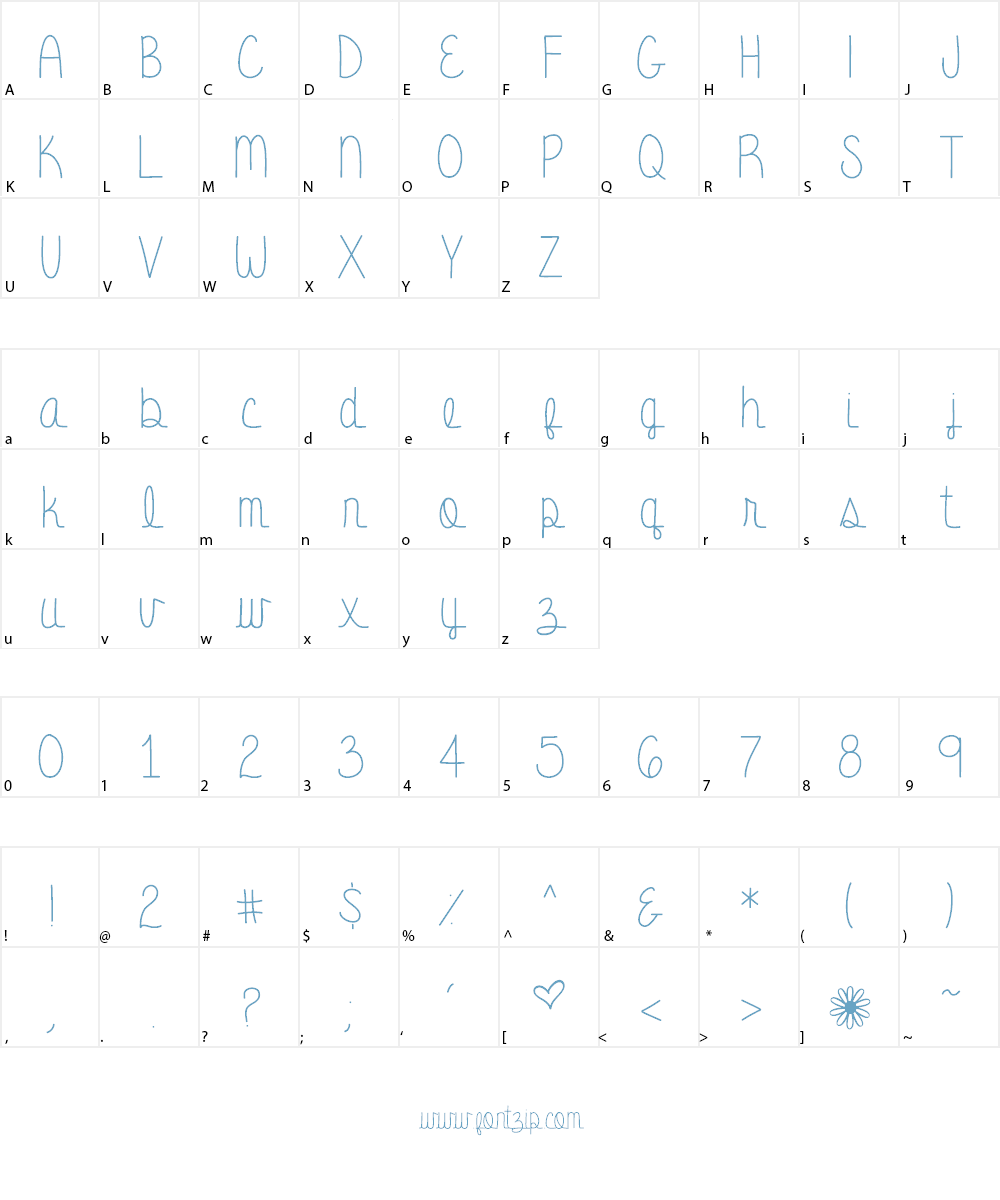
I have added several KERNING pairs to this font. You will not be able to see them in the fontspace preview field, but once you download the font and use it in your program (paint, photoshop, word, etc) you will see the kerning pairs. Kerning is another word for letter spacing. It will help the letters flow and connect smoother. :)